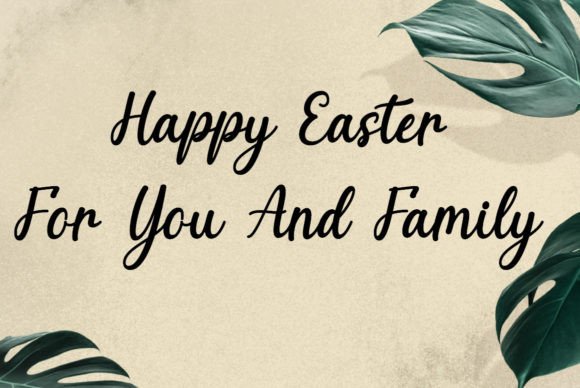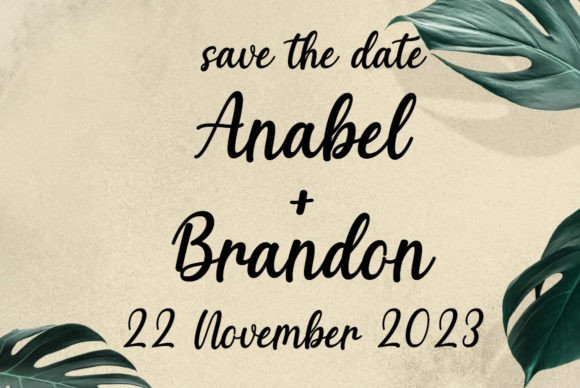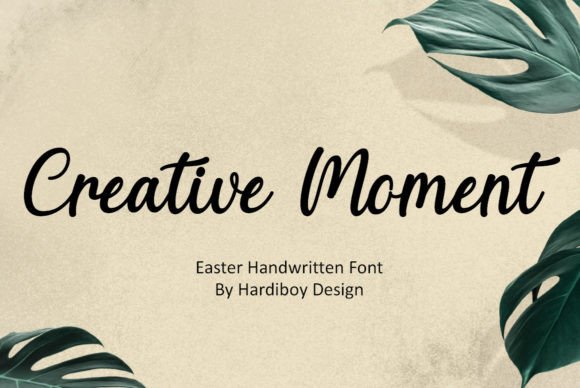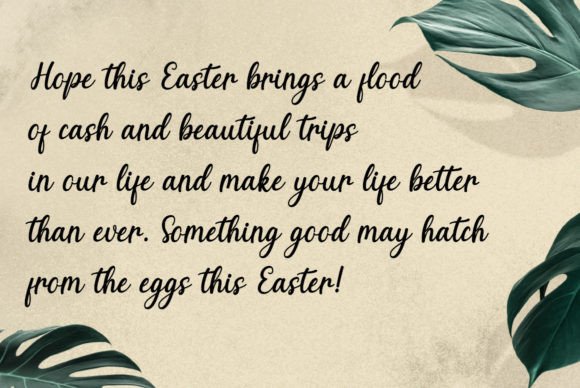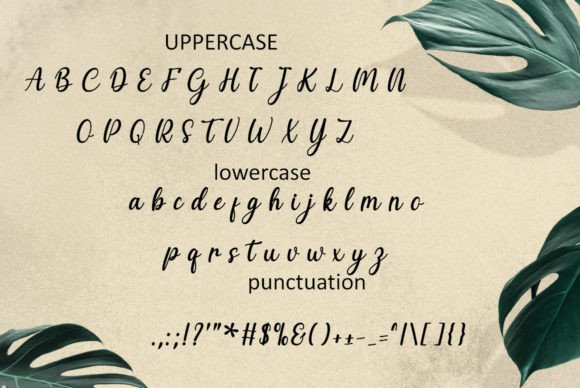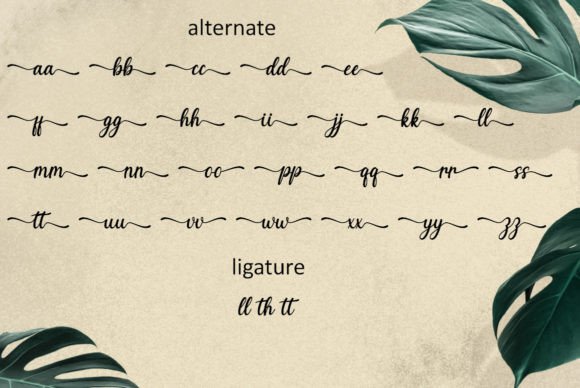
Easter Font: Elevate Your Designs with Elegance and Sophistication
Easter is a beautiful, stylish, and incredibly elegant handwritten font that can add a touch of sophistication to any design project. Whether you’re working on wedding invitations, thank you cards, quotes, greeting cards, logos, business cards, or any other design that needs a handwritten touch, Easter font is an excellent choice. In this article, we’ll explore the features and benefits of Easter font, and how it can elevate your designs to the next level.
A Perfect Handwritten Font for Elegant Designs
Easter font boasts a classic, cursive style with flowing lines and delicate strokes, making it perfect for designs that require a touch of elegance. The font’s elegant appearance is sure to impress, whether you’re designing wedding invitations, branding materials, or social media graphics. Its versatility allows it to be used in a wide range of design projects, from formal events to everyday applications.
Key Features of Easter Font
- PUA Encoded: Easter font is PUA (Private Use Area) encoded, which means you can access all the glyphs and swashes with ease. This feature allows you to customize your designs and add unique touches to make them stand out.
- Handwritten Style: The font’s handwritten style gives it a personal and intimate feel, making it perfect for designs that require a human touch.
- Elegant and Sophisticated: Easter font exudes elegance and sophistication, making it ideal for high-end designs, such as luxury branding, wedding invitations, and formal events.
Use Cases for Easter Font
Easter font is incredibly versatile and can be used in a wide range of design projects, including:
- Wedding Invitations: Add a touch of elegance to your wedding invitations and save the dates with Easter font.
- Thank You Cards: Express your gratitude with beautifully designed thank you cards featuring Easter font.
- Quotes and Greeting Cards: Use Easter font to add a personal touch to your quotes and greeting cards.
- Logos and Branding: Create a unique and memorable brand identity with Easter font.
- Business Cards: Stand out from the competition with elegantly designed business cards featuring Easter font.
Why Choose Easter Font?
With so many fonts available, why choose Easter font? Here are a few reasons:
- Unique and Elegant: Easter font offers a unique and elegant style that’s sure to impress.
- Highly Versatile: The font’s versatility allows it to be used in a wide range of design projects.
- Easy to Use: Easter font is PUA encoded, making it easy to access all the glyphs and swashes.
Tips for Using Easter Font
Here are a few tips for using Easter font in your designs:
- Pair with Other Fonts: Experiment with pairing Easter font with other fonts to create a unique and interesting contrast.
- Use Swashes and Glyphs: Take advantage of Easter font’s PUA encoding to add custom swashes and glyphs to your designs.
- Adjust Font Size and Color: Experiment with different font sizes and colors to find the perfect combination for your design.
Easter font is a beautiful, elegant, and versatile handwritten font that’s perfect for designers and crafters looking to add a touch of sophistication to their designs. With its PUA encoding, elegant style, and high versatility, Easter font is an excellent choice for a wide range of design projects. Whether you’re working on wedding invitations, branding materials, or social media graphics, Easter font is sure to elevate your designs to the next level.